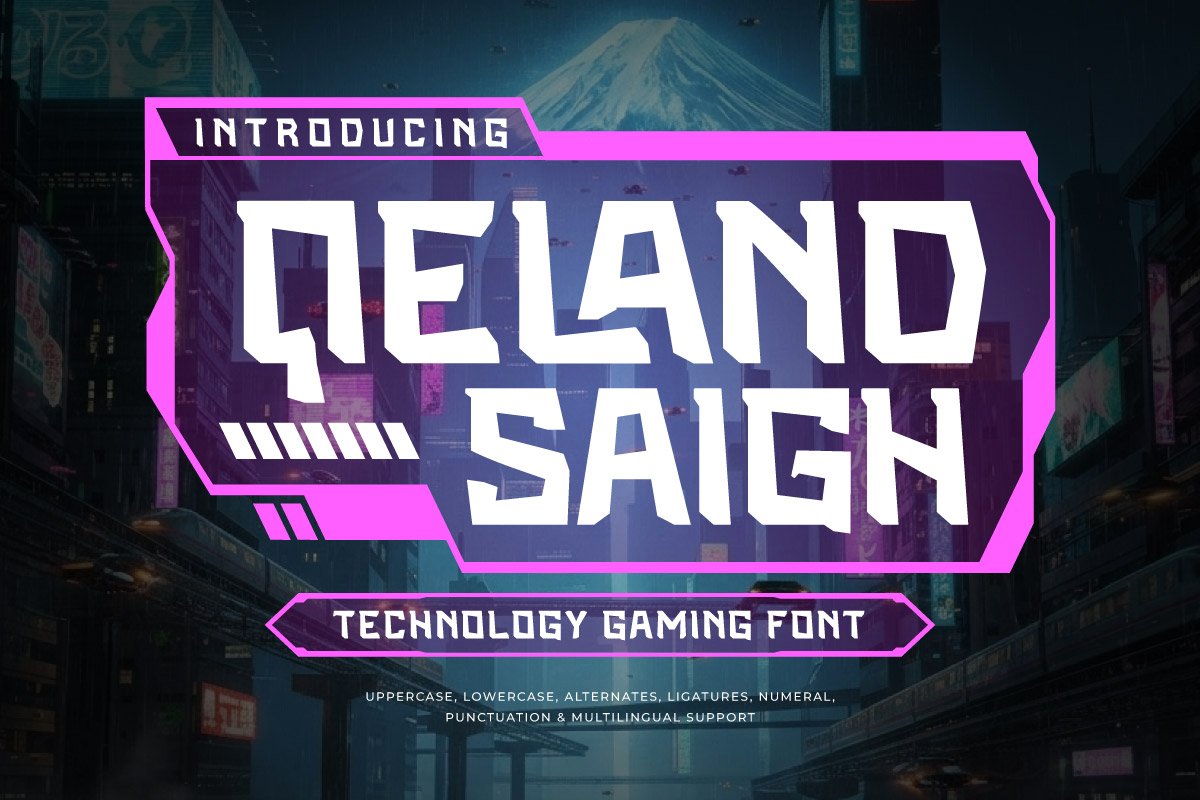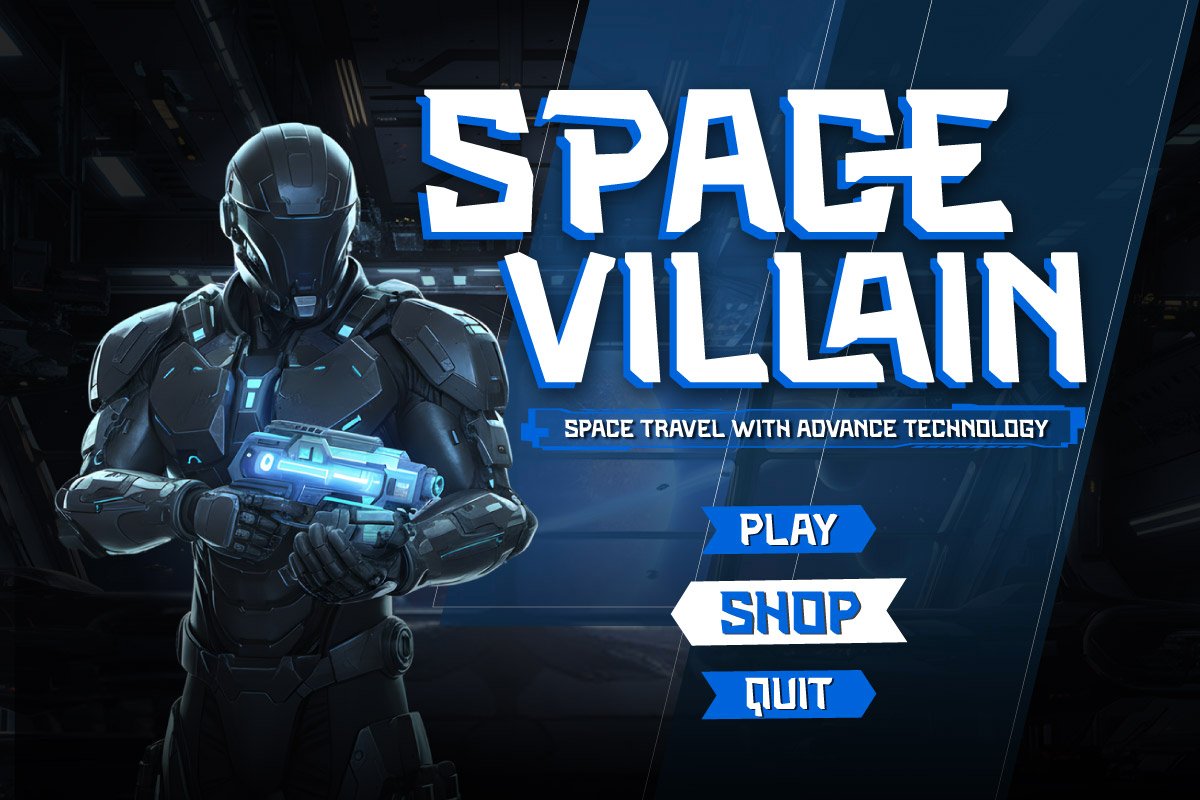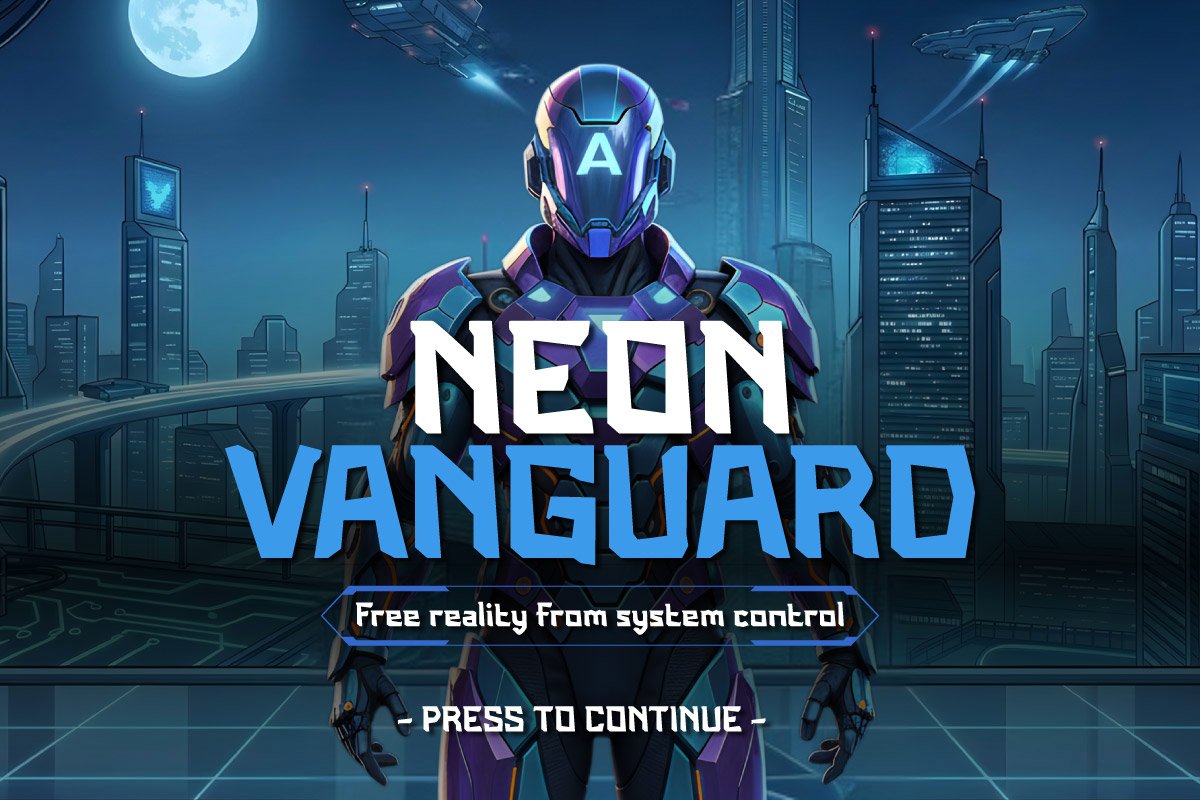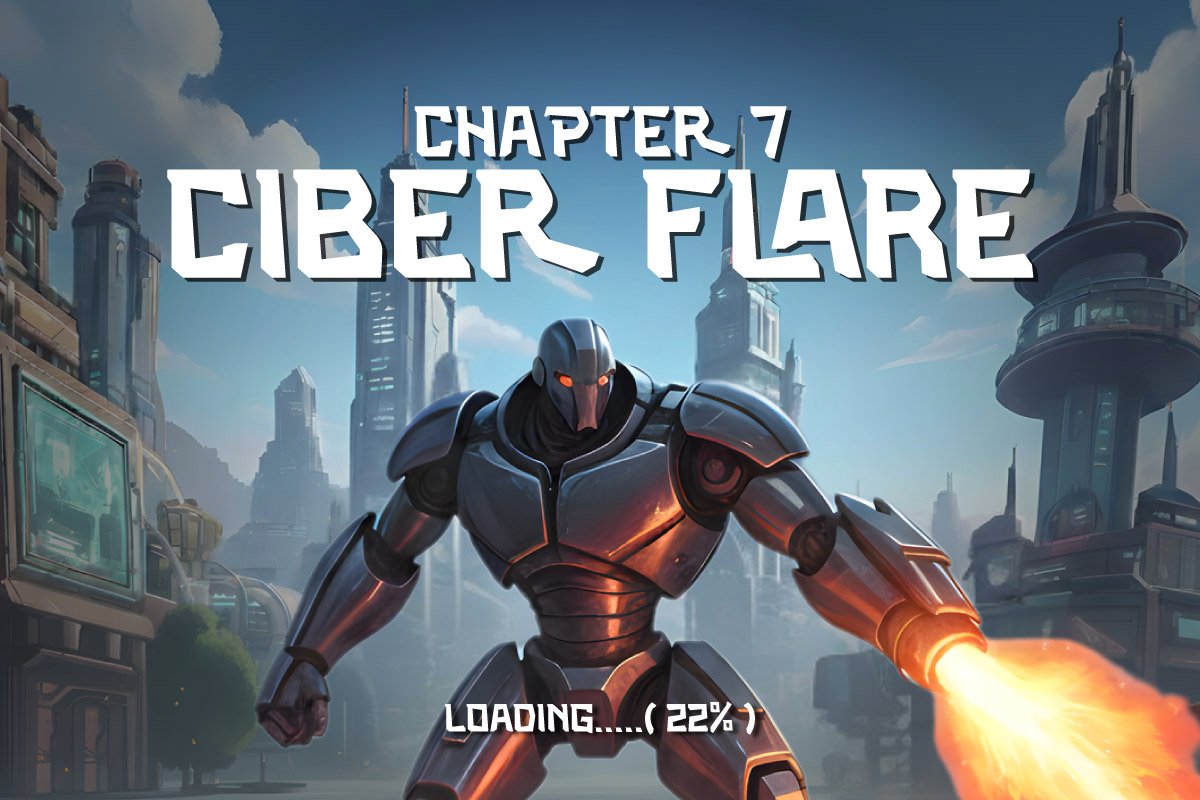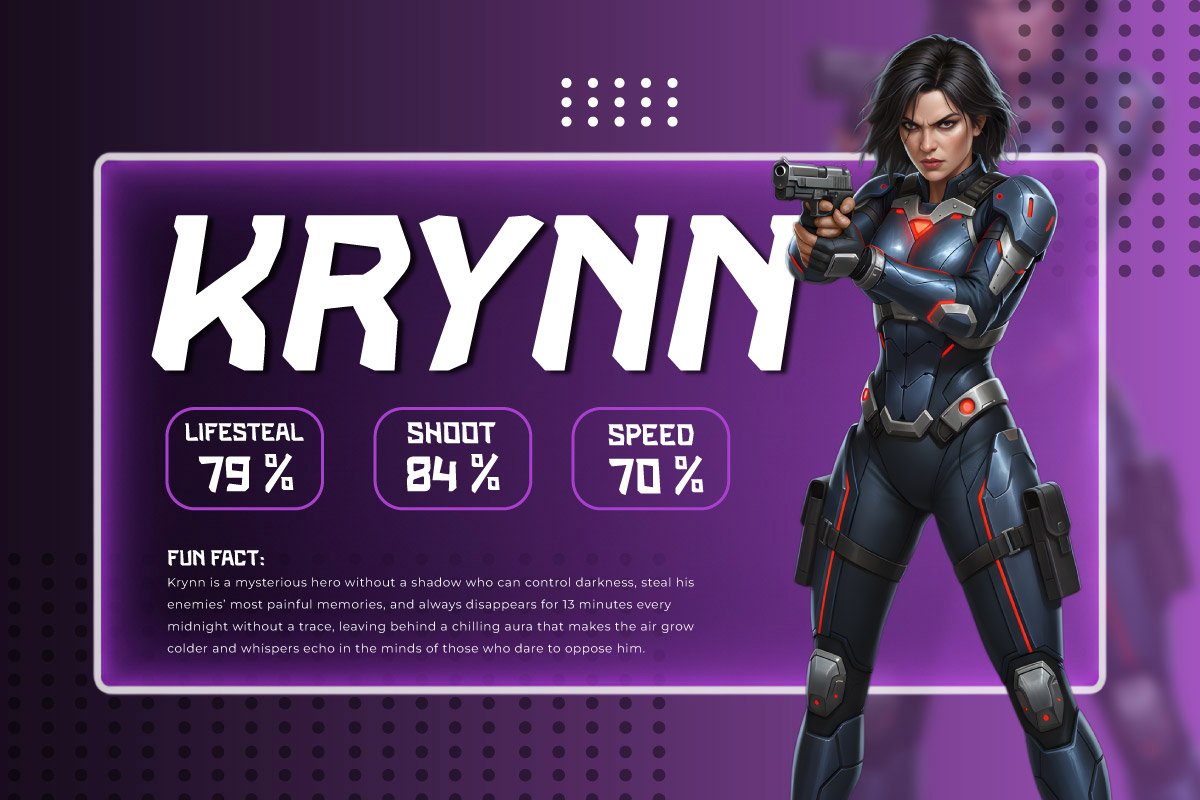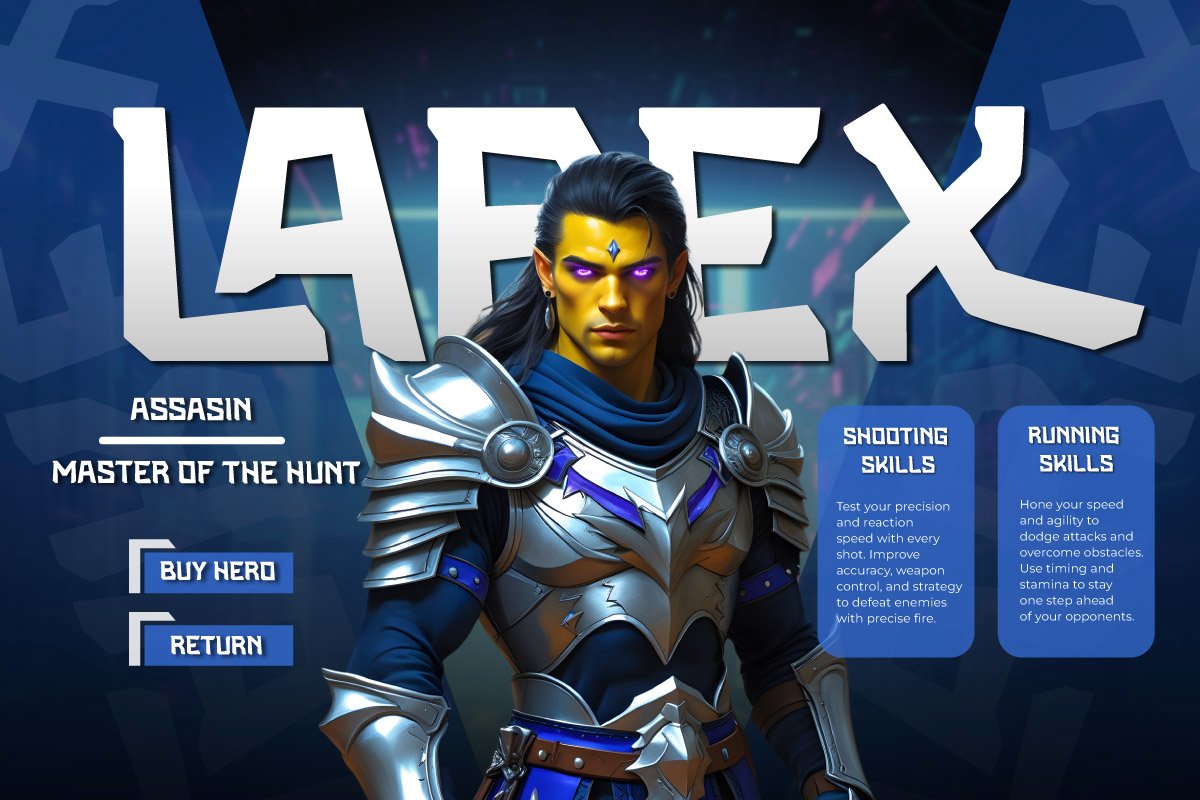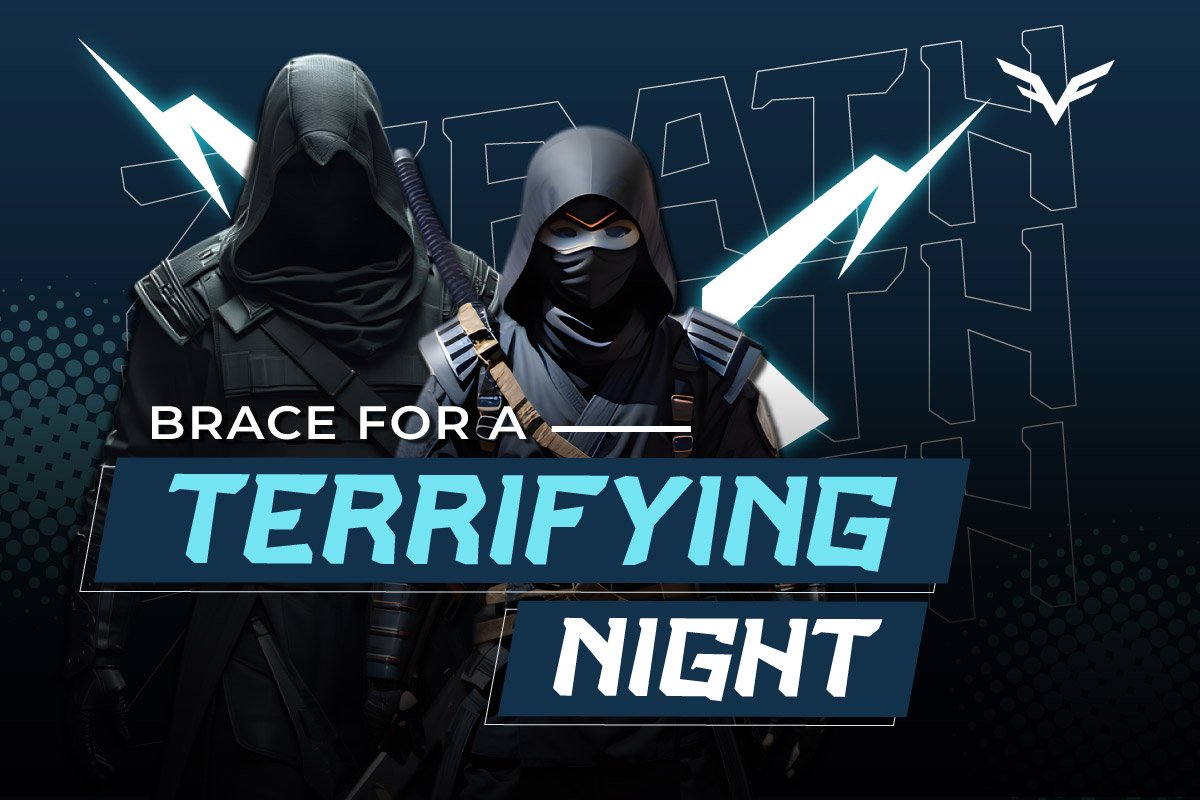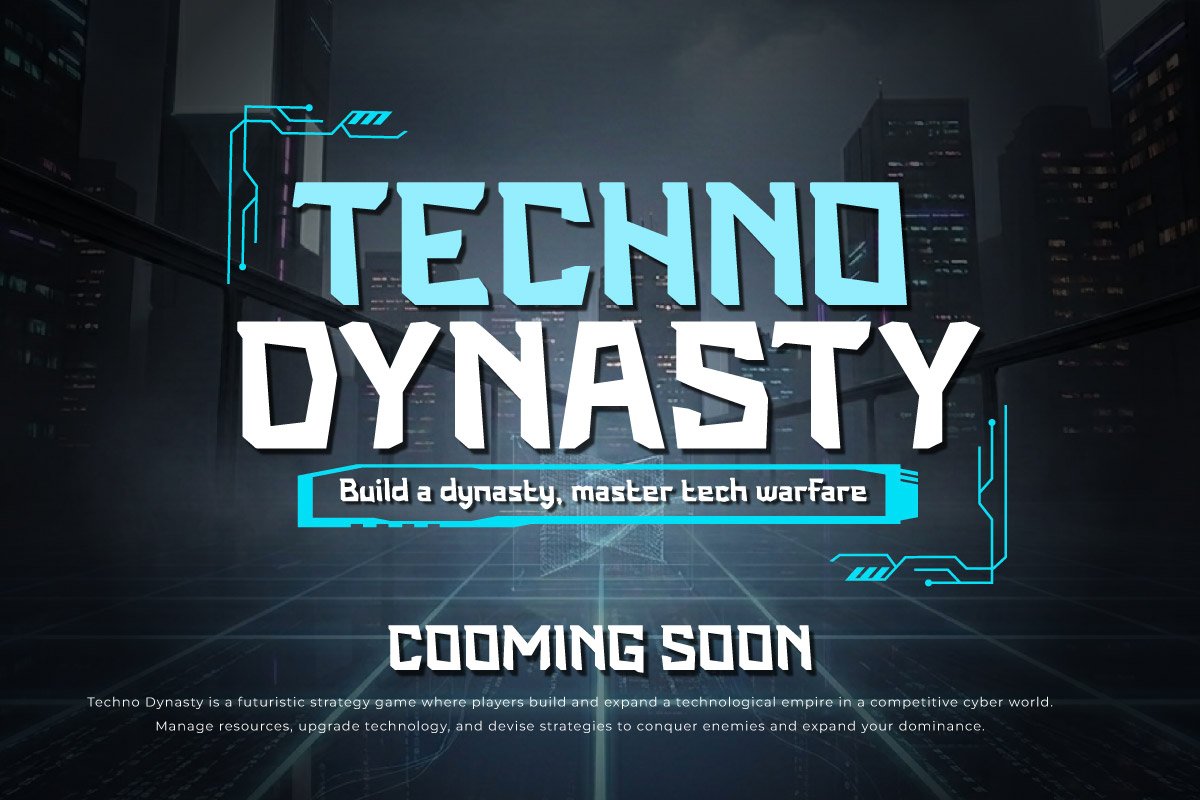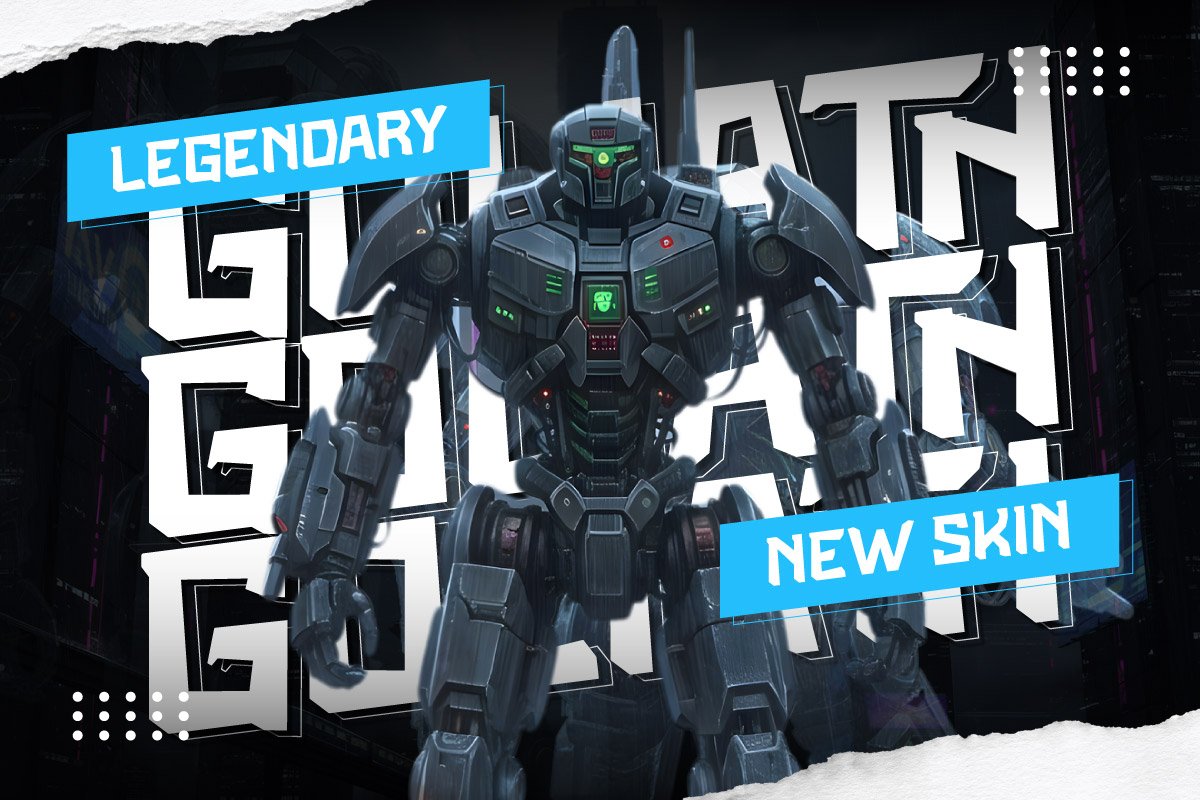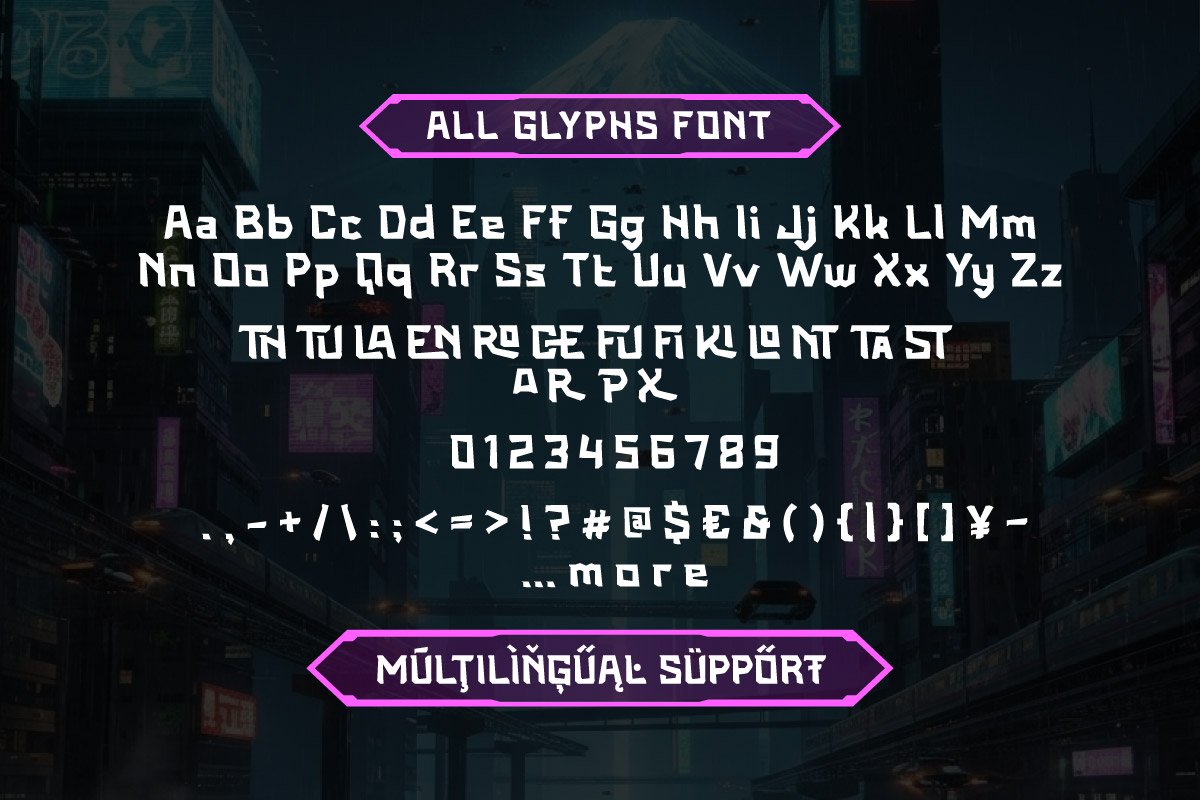
- Qeland Saigh – Technology Gaming Font
Qeland Saigh is a Modern Sans Serif typeface specifically designed for the visual needs of the Fintech and digital banking industries. With clean and geometric letterforms, this font delivers a professional and sophisticated impression. Its characteristics are ideal for building visual identities within Digital Banking and modern financial ecosystems that prioritize efficiency and innovation.
As a future-ready digital typography solution, Qeland Saigh is highly effective for corporate branding, virtual debit card designs, and modern financial reports. The font offers a balance between technical flexibility and a contemporary character for financial institutions prioritizing credibility. Qeland Saigh is a professional asset for strengthening information hierarchy in secure, modern, and innovative interface designs.